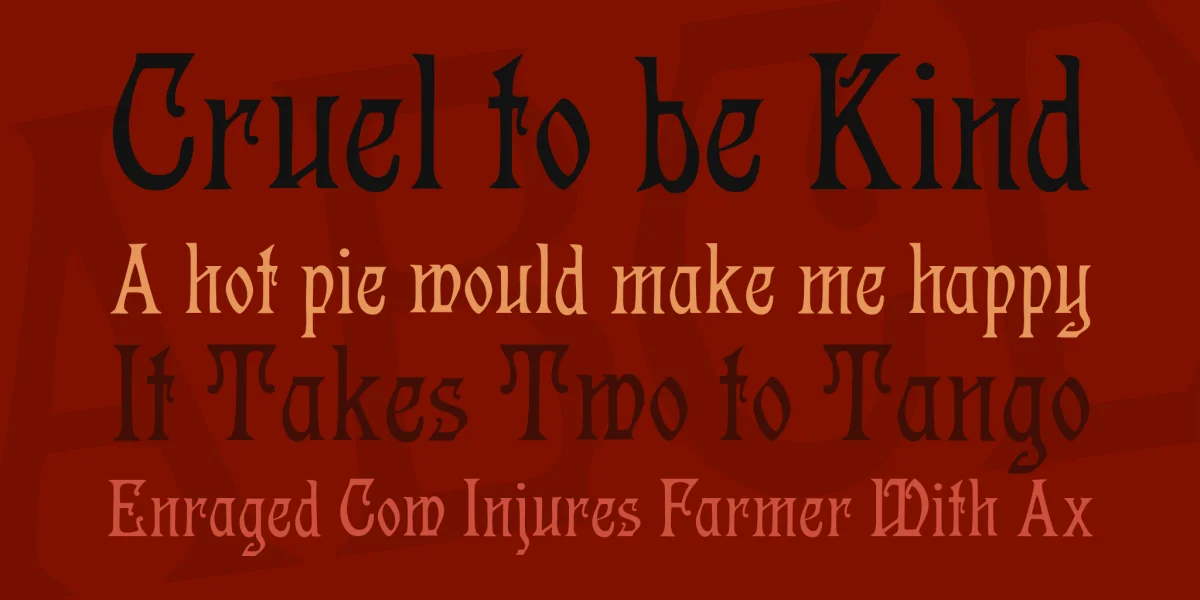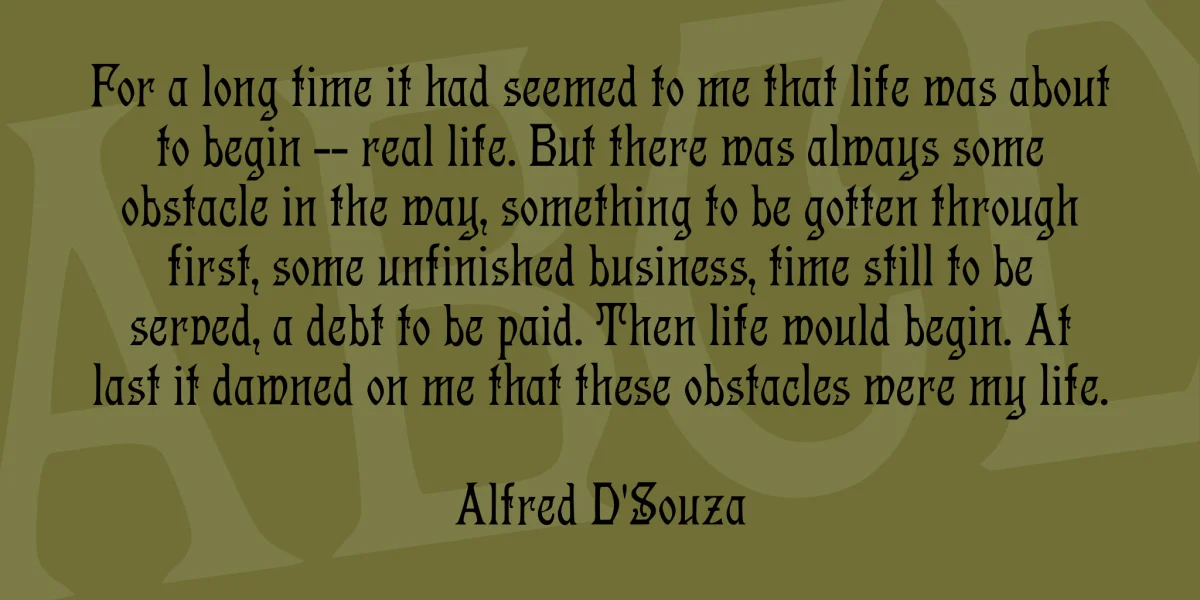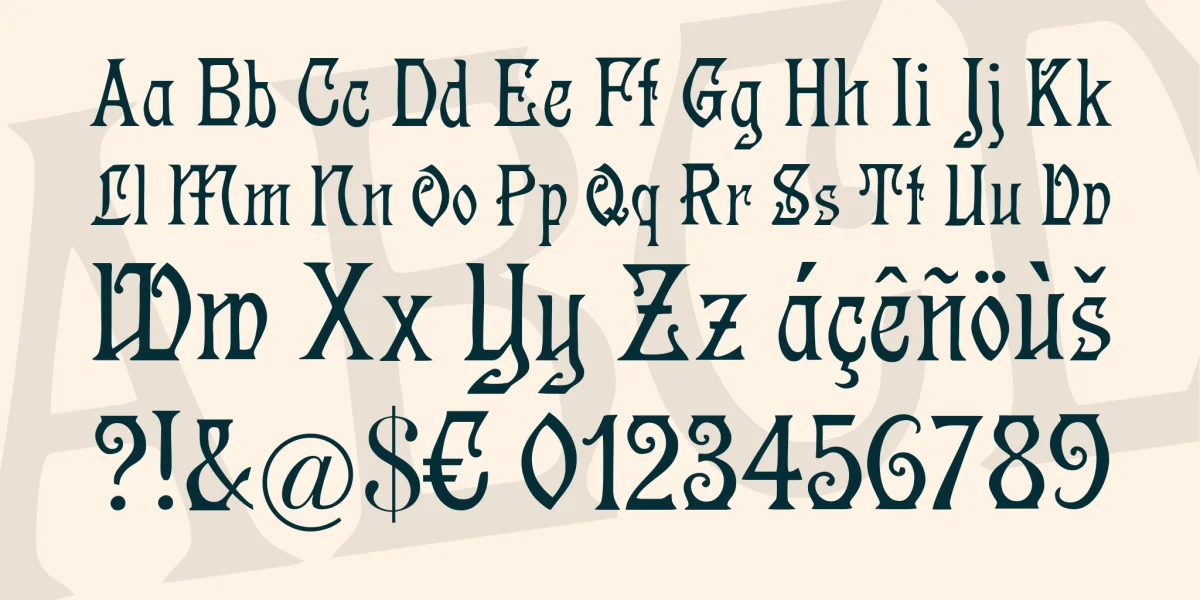
Sometime before 1905 the display font Tedesca appear in Offenbach, at the Corporation for type foundry and engineering. I digitized the letters and numbers that I found and additionally I added the complete alphabet, special characters, all western European accents and a complete set of Cyrillic characters. Therefore, I decided to give the font a new name, so I named it Germanica. Please donate if you like the font!